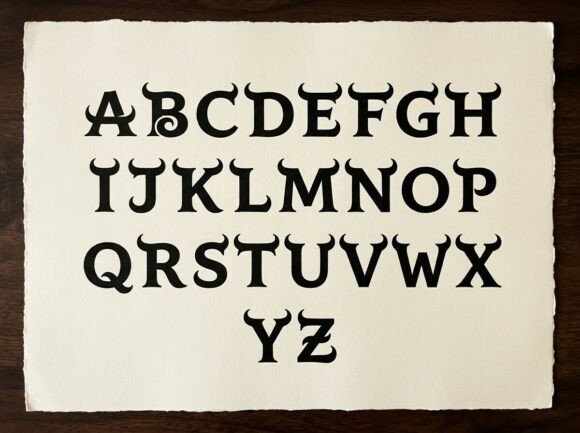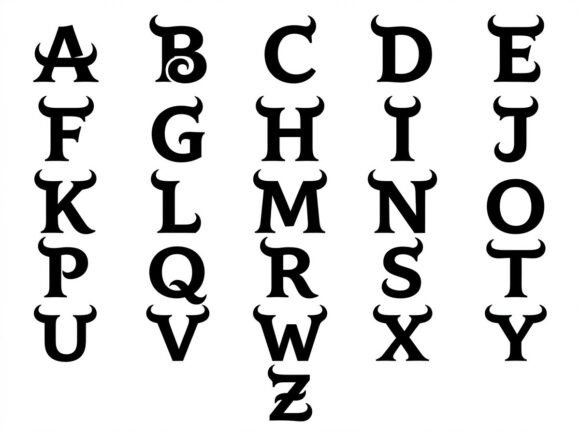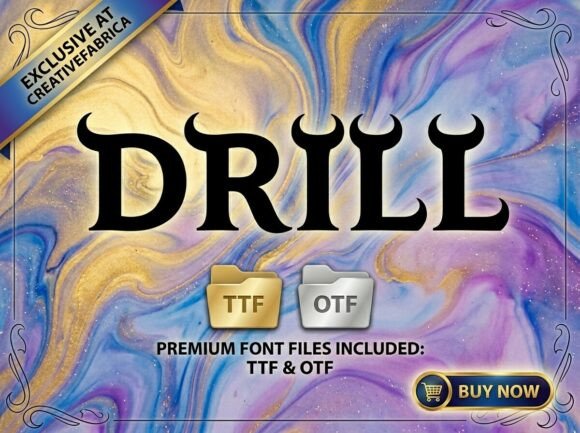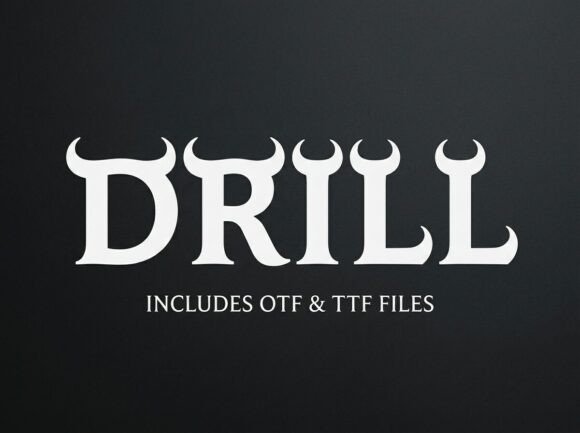
Unleash Your Design’s Inner Strength with Drill Font
In the world of typography, fonts play a crucial role in conveying the tone and personality of a brand or design. For those seeking a typeface that exudes power, elegance, and a touch of edginess, Drill font is an exceptional choice. This high-impact display font combines the classic structure of serif fonts with a sharp, devilish edge, making it perfect for designs that demand attention.
The Anatomy of Drill Font
Drill font features bold, thick letterforms that command attention. What sets it apart from traditional serif fonts is the replacement of classic serifs with aggressive, inward-curving horn motifs. This unique design element adds a sharp, devilish edge to the font, lending it an air of dark elegance and imposing power.
The combination of heavy visual weight and clean, sharp terminals in Drill font creates a striking contrast. This contrast is key to its versatility, making it suitable for a wide range of applications, from heavy metal branding and edgy streetwear logos to dark fantasy headers and high-energy sports graphics.
Applications of Drill Font
Drill font’s robust and commanding presence makes it an ideal choice for various design projects. Here are a few areas where Drill font truly shines:
• Heavy Metal Branding: For bands, music labels, or any brand associated with the heavy metal genre, Drill font offers a typographic solution that resonates with the genre’s powerful and intense vibe.
• Edgy Streetwear Logos: Streetwear brands often seek to stand out with bold and daring designs. Drill font’s unique blend of classic and aggressive elements makes it a perfect fit for logos that need to make a statement.
• Dark Fantasy Headers: In the realm of dark fantasy literature or gaming, atmosphere is key. Drill font helps set the tone with its dark elegance and sense of power, drawing readers or players into the world you’re creating.
• High-Energy Sports Graphics: For sports brands or events that thrive on energy and intensity, Drill font delivers a visual punch that captures the dynamism and competitive spirit of the sports world.
Crafting Standout Titles and Brand Identities
Whether you’re an author looking to create a compelling title for your thriller novel or a brand aiming to establish a fearless identity, Drill font is up to the task. Its ability to convey a sense of unyielding strength and artisanal intensity makes it a valuable tool in the hands of designers and crafters.
With Drill font, you can:
• Create headlines that grab attention and refuse to let go.
• Develop brand identities that stand out in crowded markets.
• Add a touch of dark elegance and sophistication to your designs.
• Convey a sense of power and intensity that aligns with your brand’s message.
Drill font is more than just a typeface; it’s a design statement. Its unique fusion of classic serif structure with aggressive, inward-curving horn motifs sets it apart in the world of typography. For designers and crafters looking to imbue their projects with a sense of power, elegance, and edge, Drill font is an indispensable asset.
Whether you’re working on a heavy metal band’s branding, an edgy streetwear label, a dark fantasy novel, or high-energy sports graphics, Drill font offers the versatility and impact you need. So, if you’re ready to command attention and make a lasting impression, consider Drill font for your next design project.